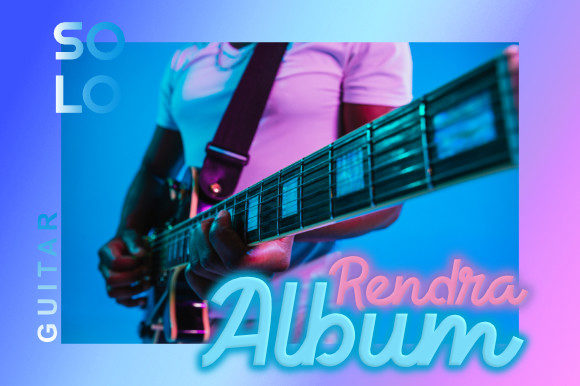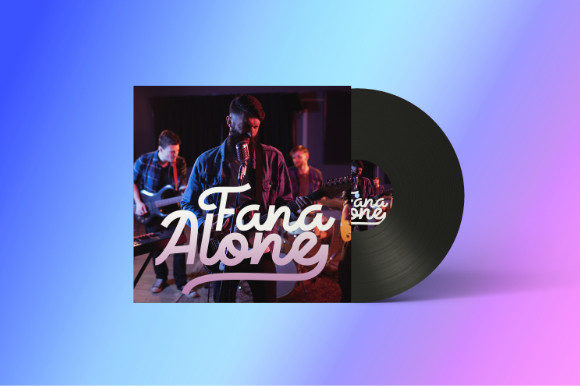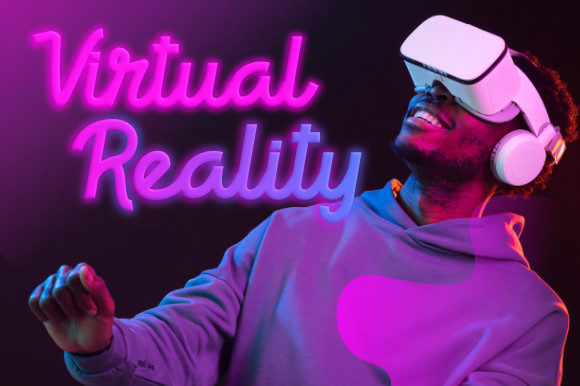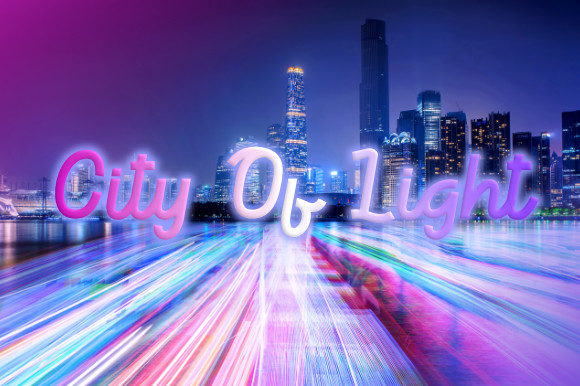
About Neon Himala Font
Neon Himala is a sweet and flowing handwritten font. Dainty and joyful, this font will be ideal for writing wedding invitations, cards or any other design that may need a romantic, personalized touch! Neon Himala is PUA encoded which means you can access all of the glyphs and swashes with ease!